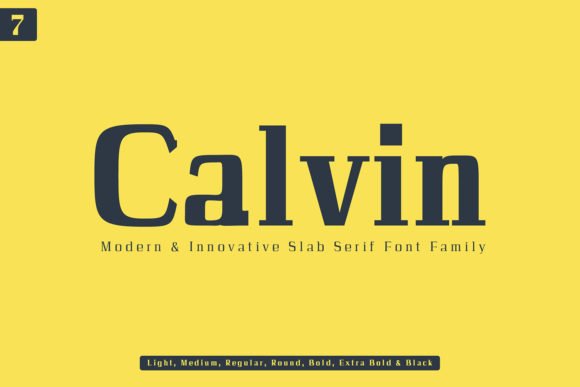
The Perfect Blend of Serious and Playful: Introducing Calvin Slab Font
Have you ever found yourself stuck in a creative rut, staring at a blank page, and wondering where to begin? The pressure to create something amazing can be overwhelming, but sometimes all it takes is a spark of inspiration to set your imagination ablaze. For designers, the right font can be that spark, elevating a design from mundane to magnificent.
Enter the Calvin Slab Font, a serious yet playful slab serif font with a modern twist on traditional lettering. This versatile font is perfect for designers looking to add a touch of sophistication to their work while still conveying a sense of approachability and friendliness. Whether you’re working on a brand identity, advertising campaign, or digital product, the Calvin Slab Font is an invaluable asset in your design arsenal.
Calvin Slab Font Key Features
- Font Family: Calvin Slab, a slab serif font designed for headlines and titles.
- Unique Characteristics: Calvin Slab features a distinctive, rugged aesthetic with a mix of geometric and organic elements, making it suitable for bold, eye-catching typography.
Designer Review: Calvin Slab Font
Overall, I’d say Calvin Slab Font is a decent addition to any designer’s toolkit, but it’s not without its quirks. Let’s dive in.
- The font’s strong, slab-serif aesthetic makes it perfect for headlines and titles.
- Calvin Slab Font comes in a variety of weights, making it easy to mix and match for different design elements.
- The font’s rounded edges give it a friendly, approachable feel that works well in modern designs.
- The font’s x-height can feel a bit inconsistent across different weights, which can make it difficult to achieve a cohesive look.
- Calvin Slab Font doesn’t offer as much variety in terms of style or flair as some other slab-serif fonts.
- The font’s rounded edges can sometimes feel a bit too rounded, making it difficult to use for more serious or formal designs.
Overall, I’d say Calvin Slab Font is a solid choice for designers looking for a clean, modern slab-serif font. However, it may not be the best fit for every project – be sure to consider its limitations before committing to using it.
Tips for Getting the Most Out of Calvin Slab Font
Use the Calvin Slab font for titles, headings, and emphasis. It works well in bold and italic styles to add visual interest. Experiment with different font sizes to create a balanced and harmonious design.
The Calvin Slab font is suitable for a variety of projects, including:
- Business cards and brochures
- Print materials, such as posters and flyers
- Marketing materials, such as social media graphics and ads
Alternatives to Calvin Slab Font
Calvin Slab Font is a modern slab serif font, ideal for use in headings, titles, and captions. It features a clean and sophisticated design, making it suitable for a wide range of applications. However, there are several alternatives that can offer similar or improved results. Here are a few options:
1. Merriweather
Merriweather is a classic serif font that is often used for body text, but it can also be used for headings and titles. It has a warm and traditional feel, making it suitable for use in books, magazines, and other publications. Merriweather is a good alternative to Calvin Slab Font when you need a more traditional and formal look.
Merriweather is more traditional and formal compared to Calvin Slab Font. While Calvin Slab Font is modern and clean, Merriweather has a more classic feel that is reminiscent of traditional serif fonts.
2. Rockwell
Rockwell is a slab serif font that is similar to Calvin Slab Font, but with a more industrial and rugged feel. It is a good alternative when you need a font that is strong and bold, but still has a touch of sophistication. Rockwell is suitable for use in headings, titles, and captions, and it pairs well with sans-serif fonts.